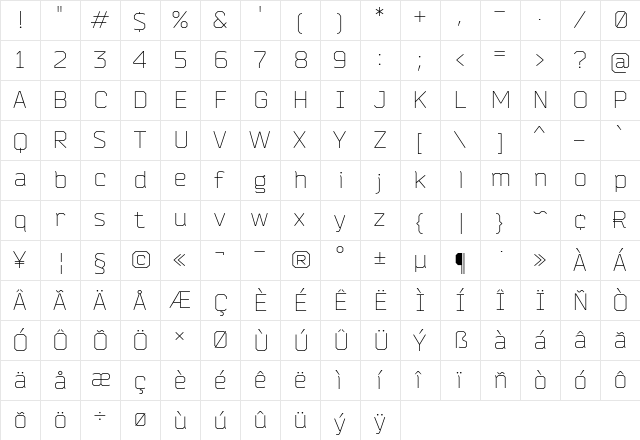
Bender Light
Light · Oleg Zhuravlev, Gladkikh Ivan Oleg Zhuravlev, Gladkikh Ivan ·
Design Context for Bender Typeface
Bender offers clean, dependable letterforms without strong stylistic allegiance, making it a practical choice for designers who need flexibility. Its slender proportions lend an understated elegance to any composition.